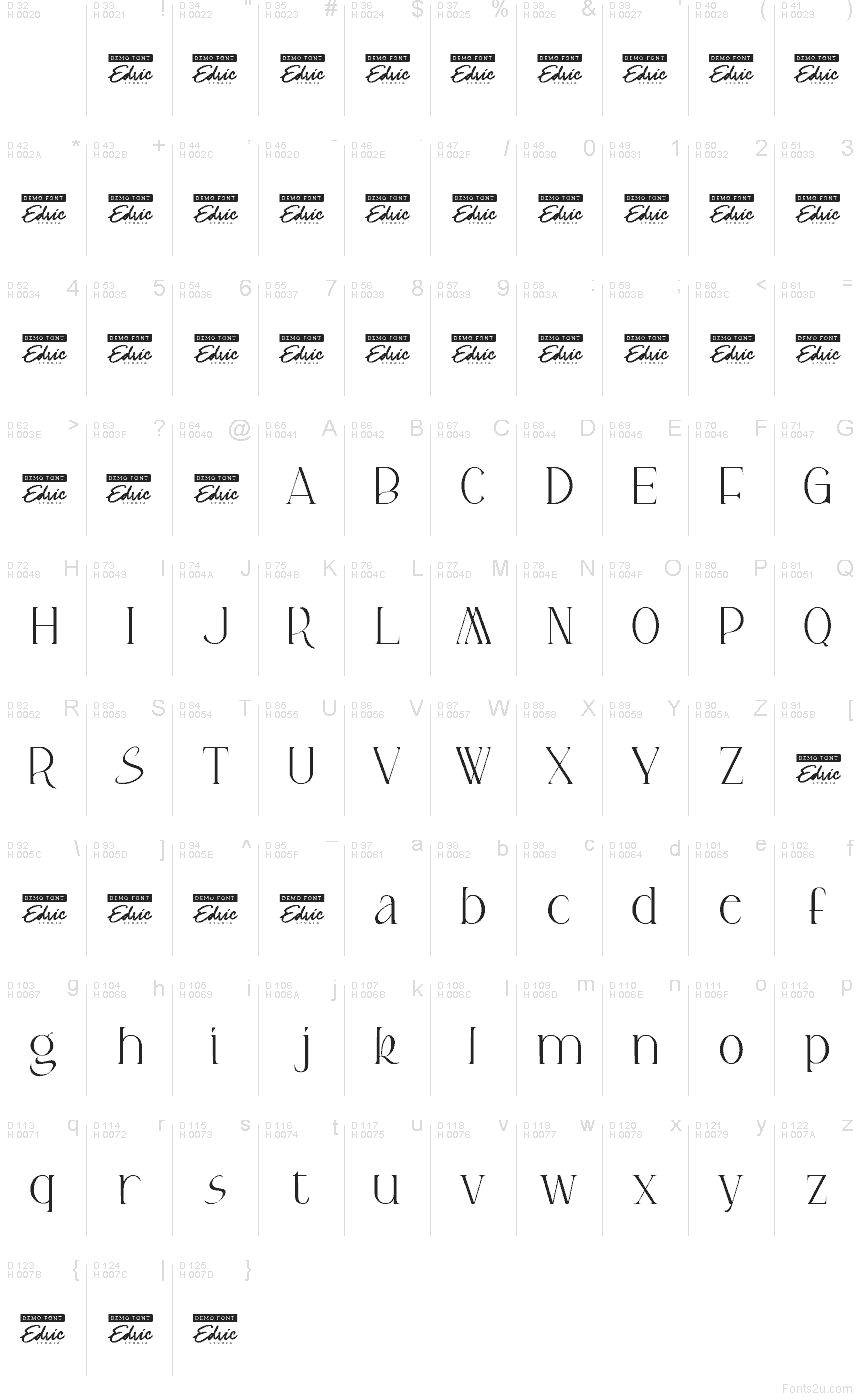
Elleora Flow Demo
Elleora Flow font by Edric Studio is a free serif typeface that feels like it’s written with a single, deliberate stroke of ink. Its letters are tall and slender, with whisper-thin lines and generous breathing room that give every word a poised, editorial presence. The rhythm is calm but confident, so even simple phrases look styled, like a fashion masthead or a perfume label.
Using Elleora Flow, headlines and short phrases take on a refined, almost cinematic elegance, making it a natural fit for branding, packaging, book covers, posters, invitations, and hero graphics on websites. This free font works beautifully when set large, letting the airy shapes shine, and pairs nicely with a clean geometric sans at smaller sizes to handle supporting text.